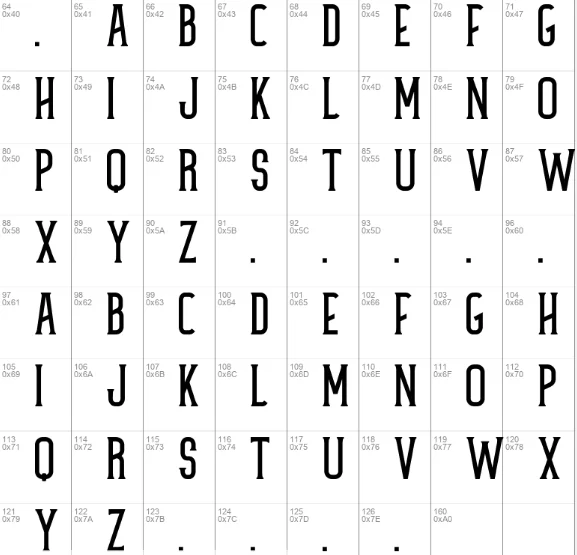
Grodna Vintage is a tall, compact serif font inspired by early 1900s posters from Oradea, Romania. Sztuchlak Gergo designed and published it. It suits vintage posters, retro logos and classic-style layouts, but check the license before commercial use.
About the Grodna Vintage font
Oradea is known as the City of Art Nouveau. The font takes its look from the posters printed there in the early 1900s, and it brings that old-style feel into modern work.
The letters have sharp brackets, the small curved joins where the serifs meet the stems. The arms are short and curve slightly at the ends. The crossbars rise from left to right, and the spine is straight with 90-degree turns.
The line weight stays fairly even from letter to letter, which keeps the look clean and elegant. The font includes the numbers 0 to 9, alternate characters and 27 glyphs. It comes as TTF and OTF files.
Grodna Vintage font usage
Grodna Vintage works well for large wallpapers and high-resolution prints. Its royal feel suits classic or old-style designs. It can also headline a magazine cover, and it has looked good in exhibition slides and presentations.
Use it for headings and short lines. A tall, compact face can look busy in long paragraphs, so pair it with a plainer font for body text.
The character map below shows the letters and numbers included in the font.
What is Grodna Vintage font inspired by?
It is inspired by early 1900s posters from Oradea, Romania. The city is known as the City of Art Nouveau.
What characters are included in Grodna Vintage?
The font includes the numbers 0 to 9, alternate characters and 27 glyphs. It is available as TTF and OTF files.